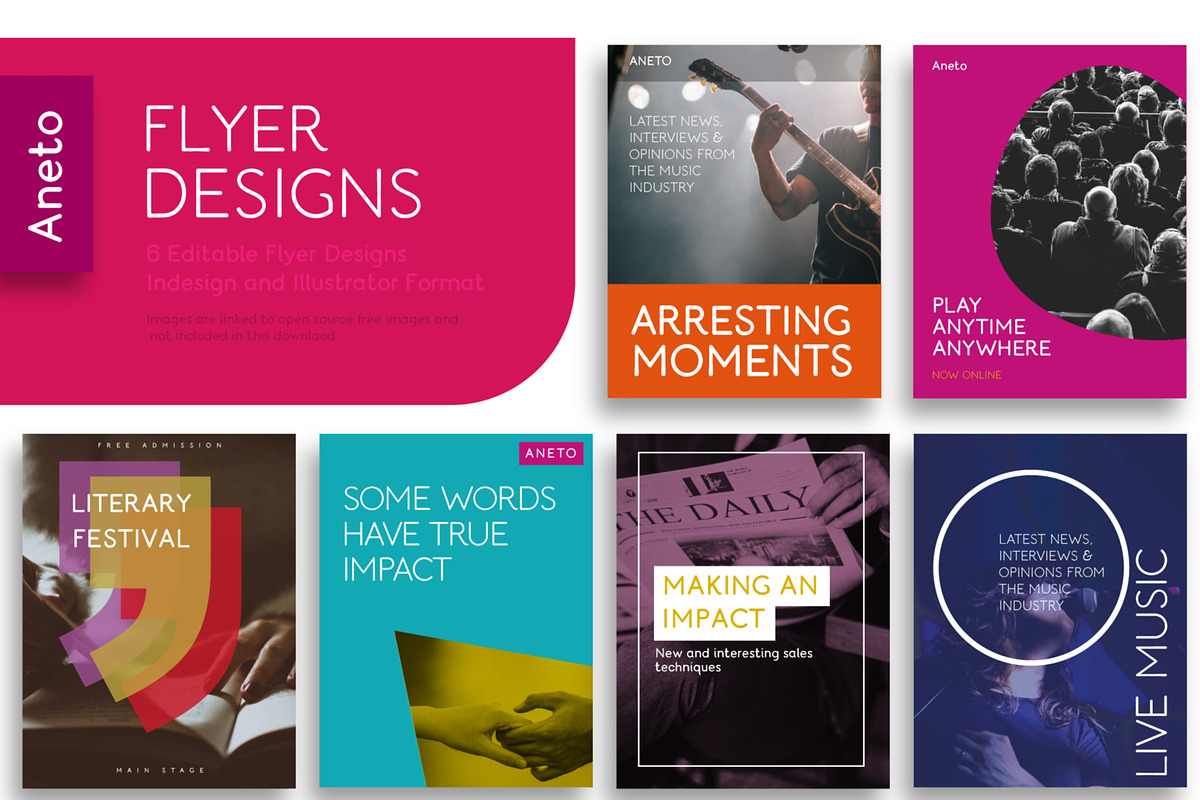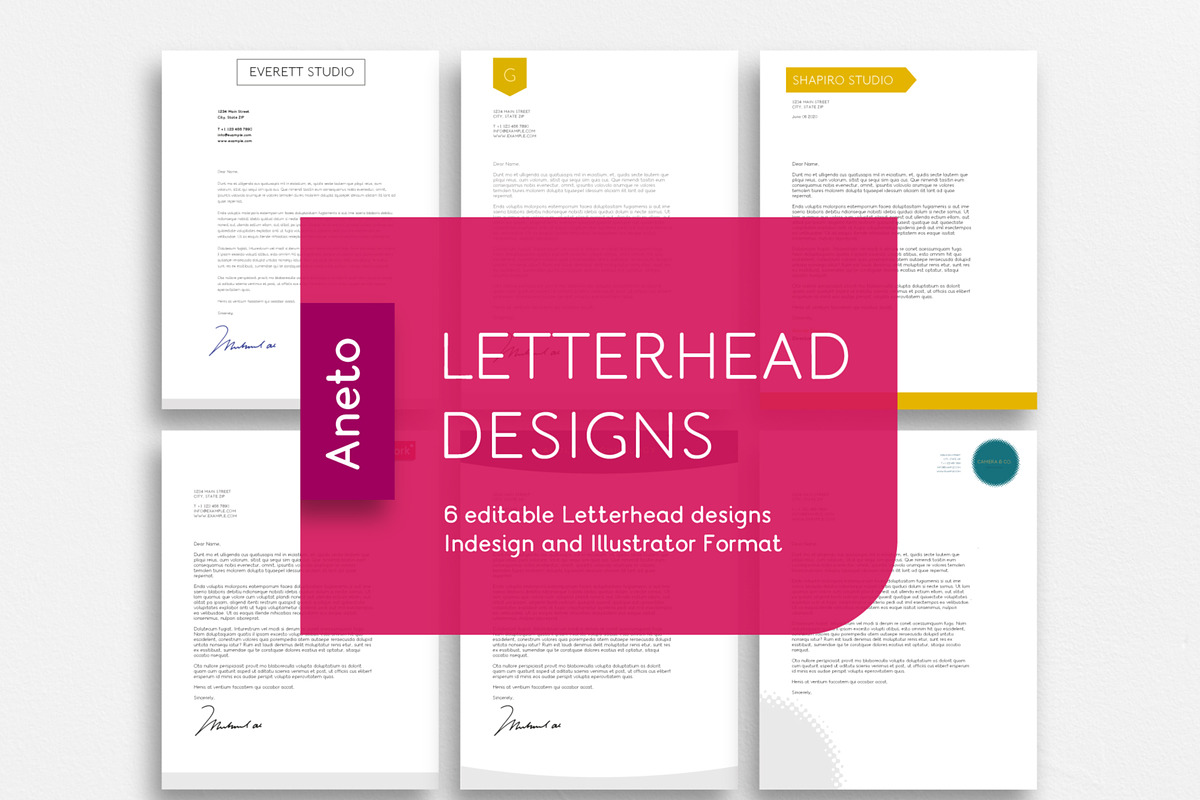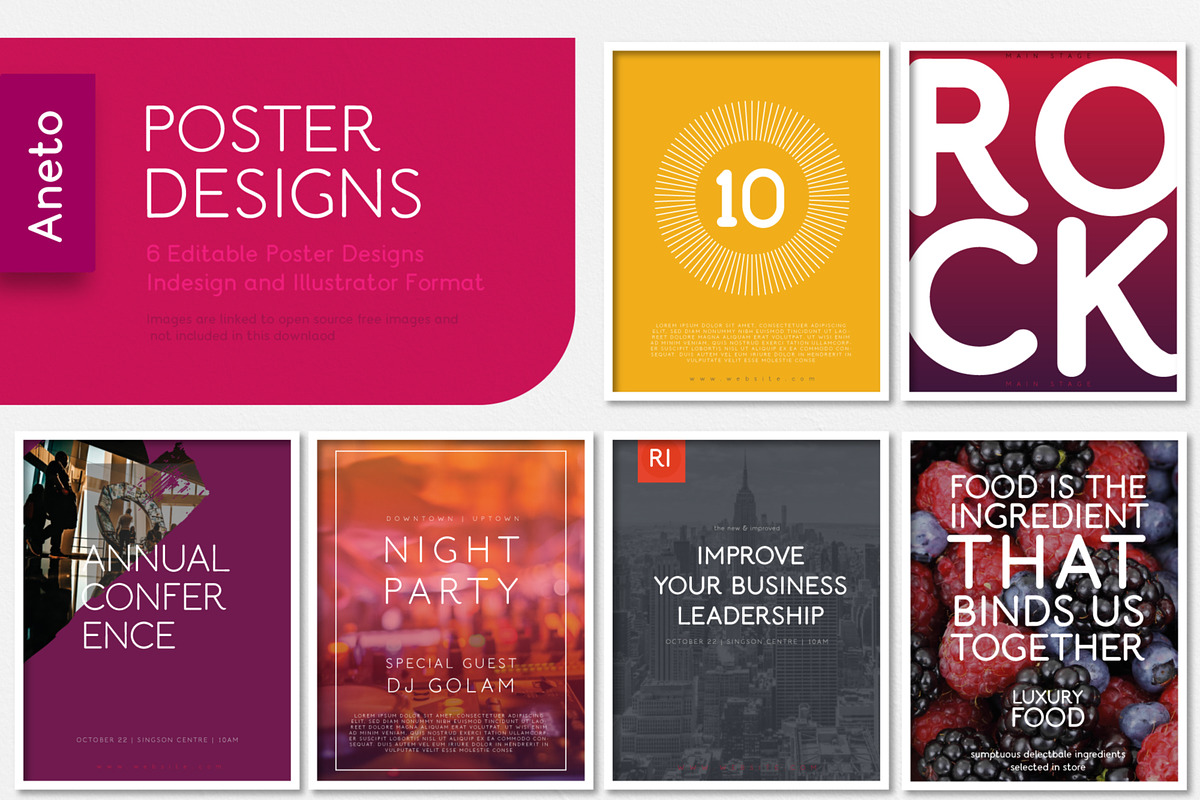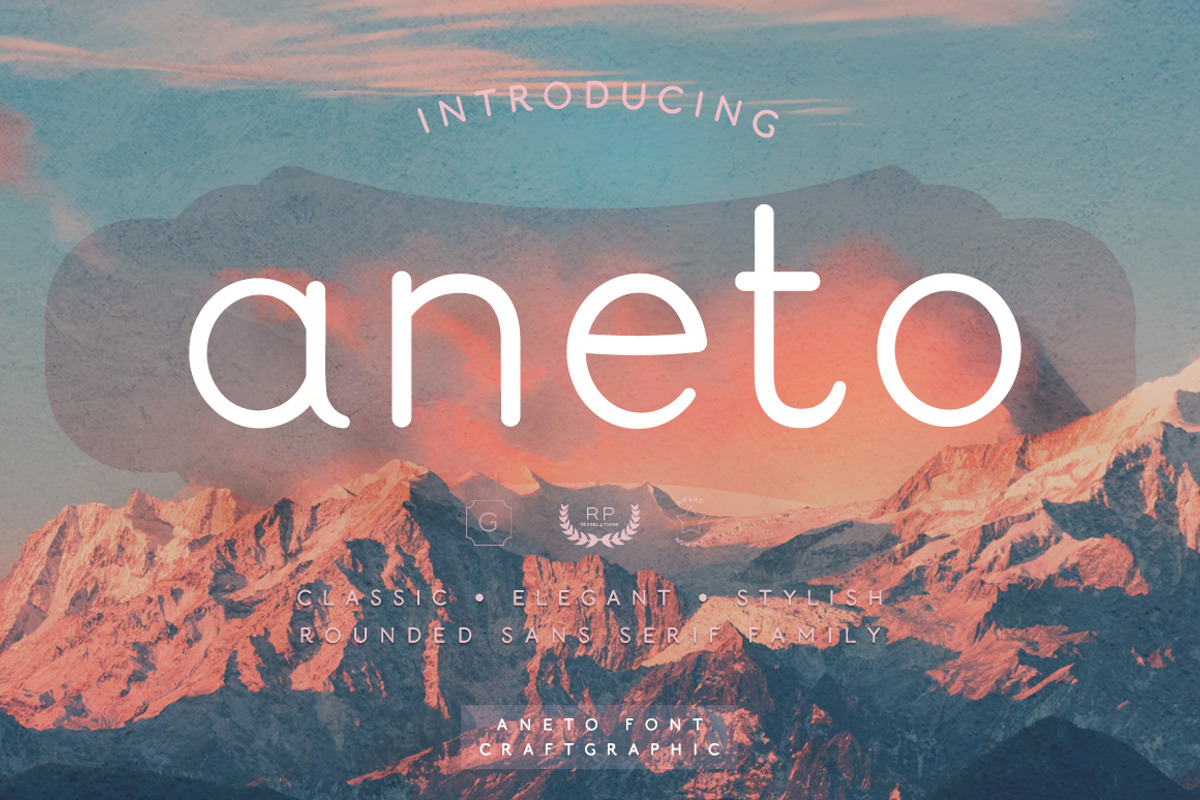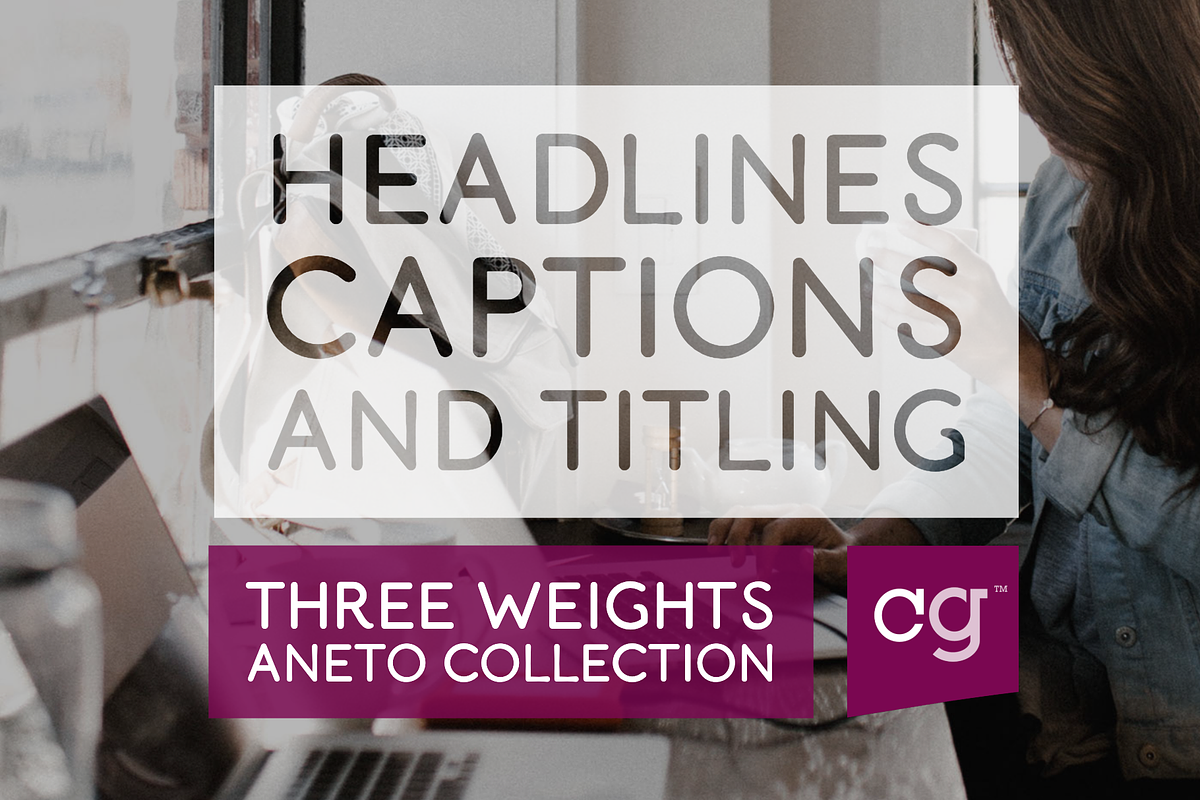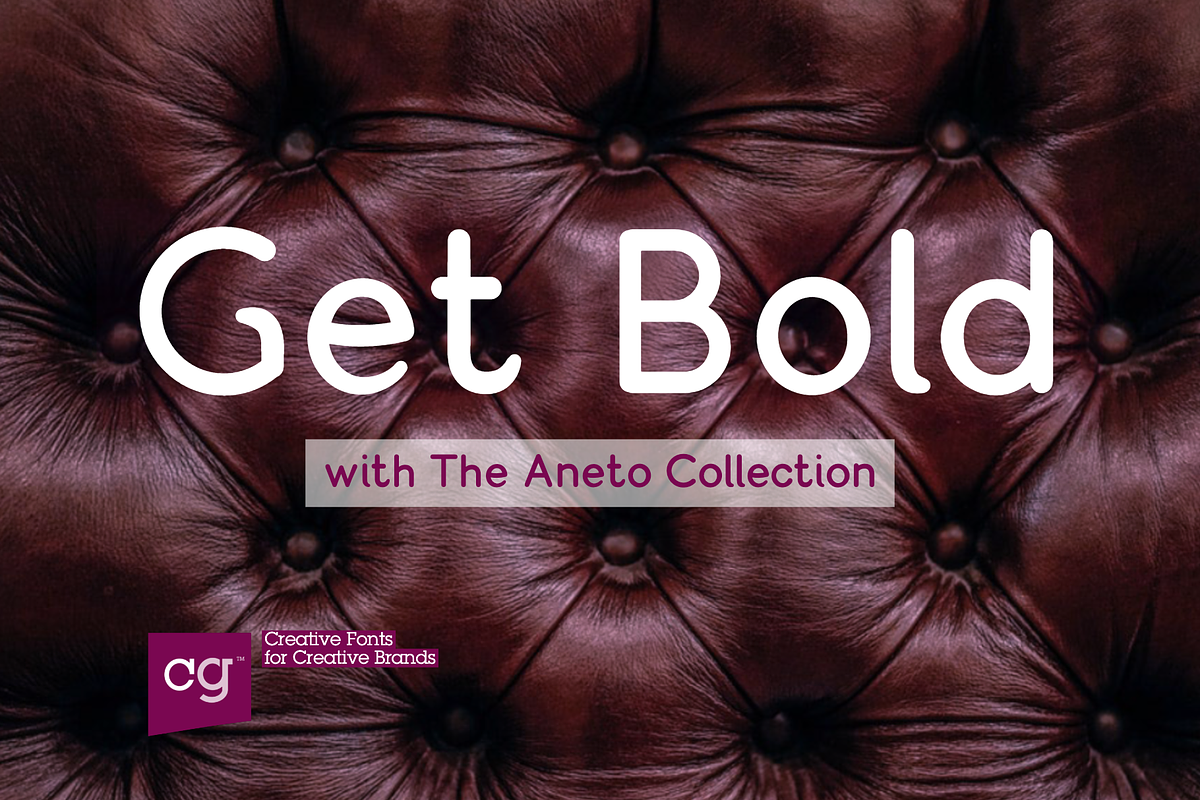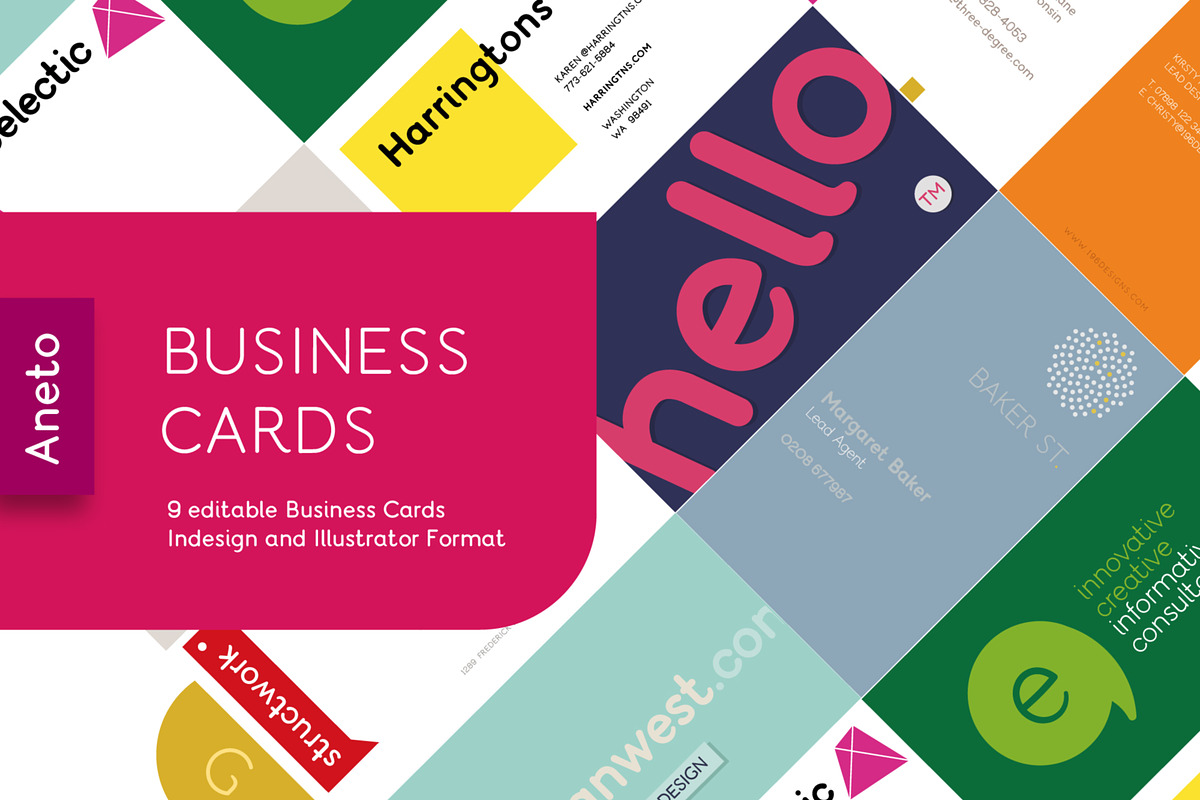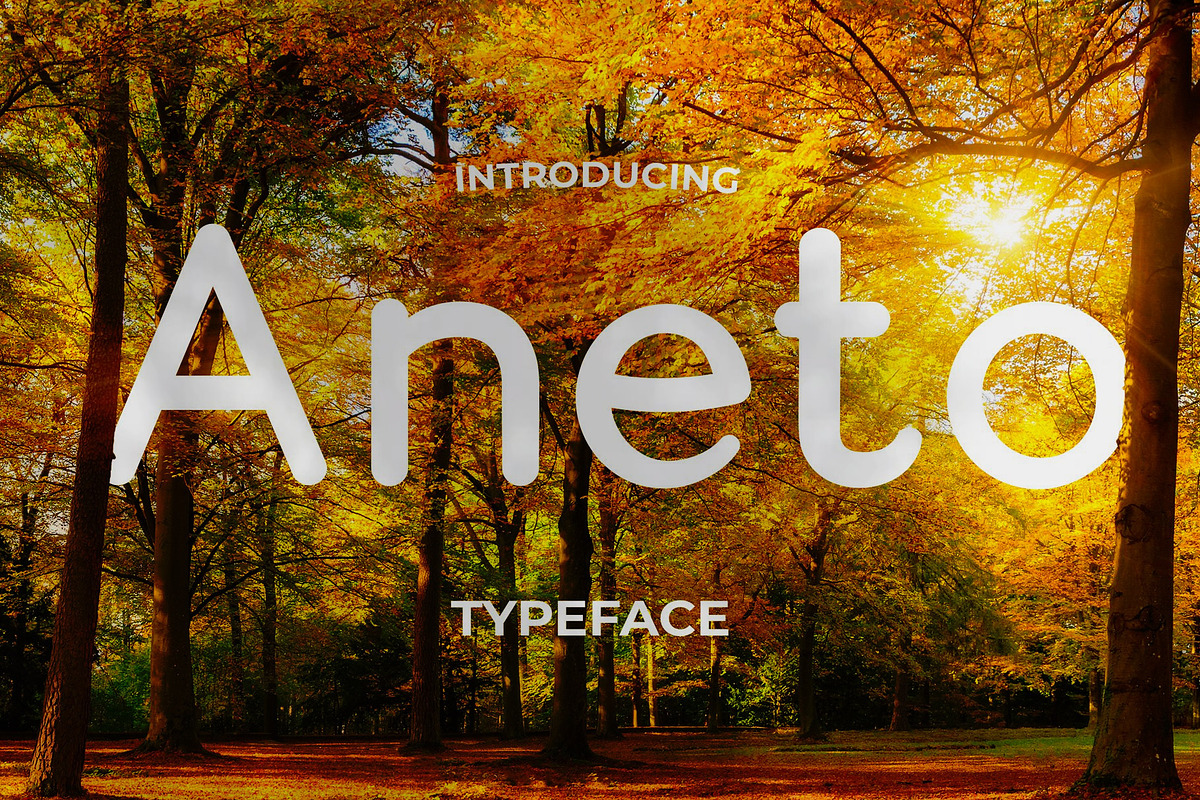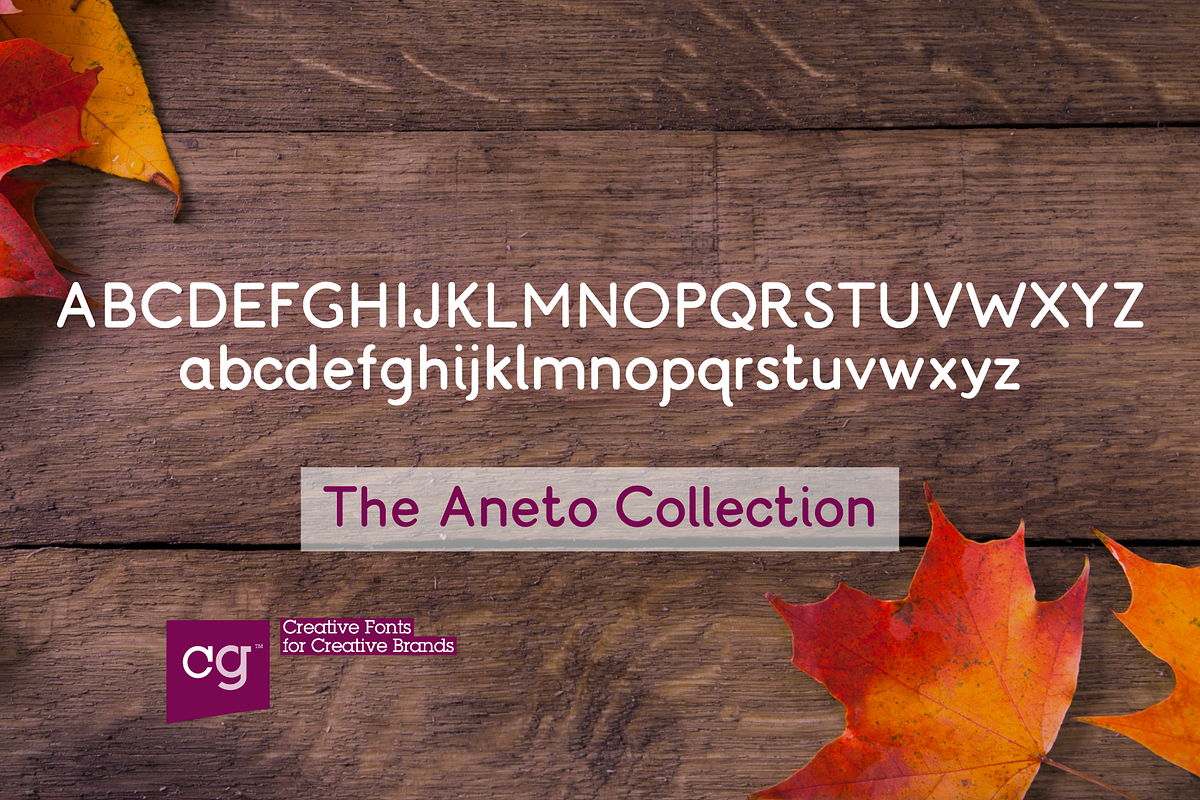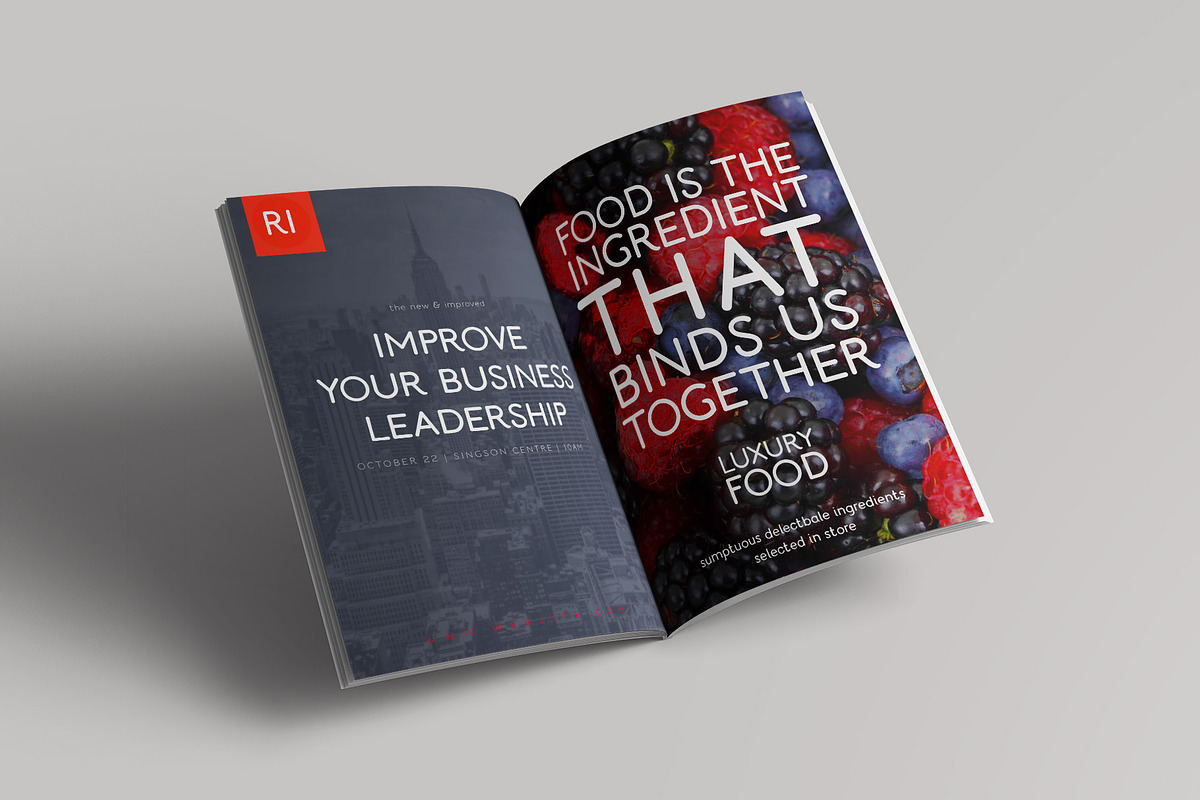
Aneto Sans | Clean Inviting Typeface
Aneto Sans Family is a clean, modern, and inviting sans-serif typeface designed to bring warmth and professionalism to any project. Its smooth curves and balanced proportions make it ideal for branding, web design, packaging, and editorial use.
With multiple weights and styles, Aneto offers flexibility and versatility, allowing it to fit seamlessly into a variety of design applications. Whether you’re looking for a soft, approachable look or a more formal, sleek design, Aneto’s versatility makes it perfect for all kinds of projects.
- Multiple weights and styles
- Uppercase and lowercase letters
Aneto’s modern yet inviting aesthetic makes it a great choice for projects that require a friendly yet professional touch. Use it for branding, websites, marketing materials, and more.